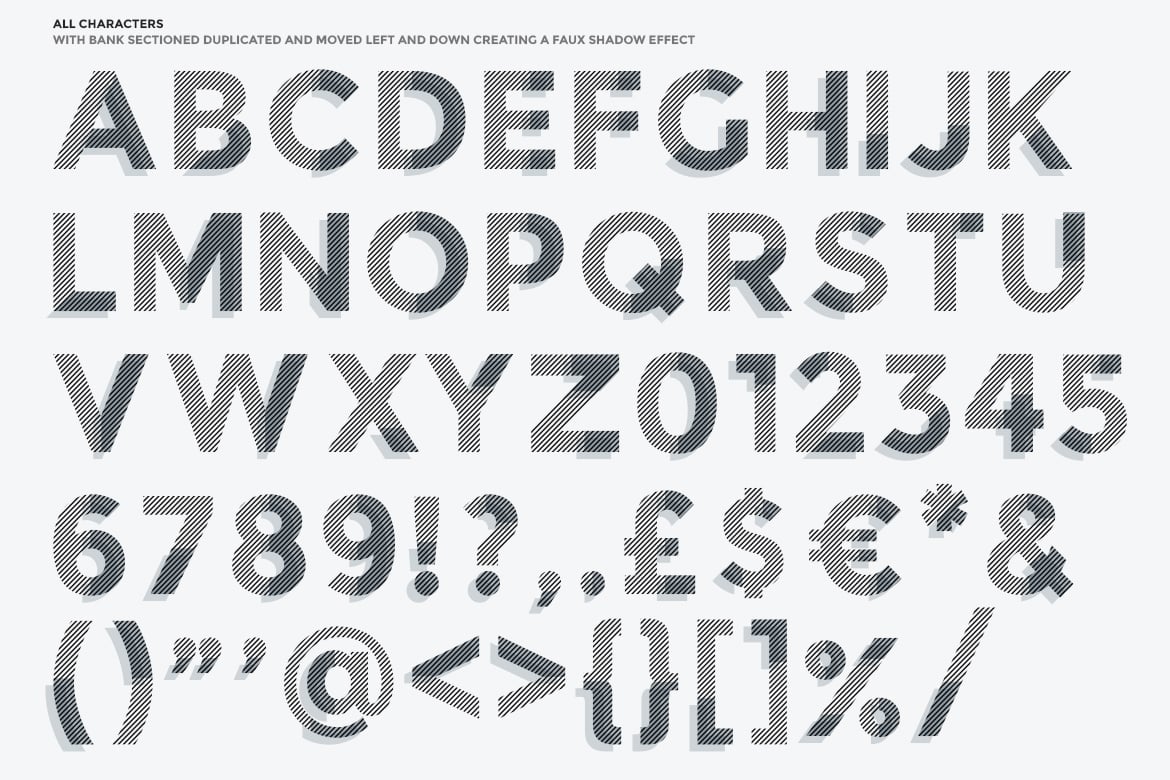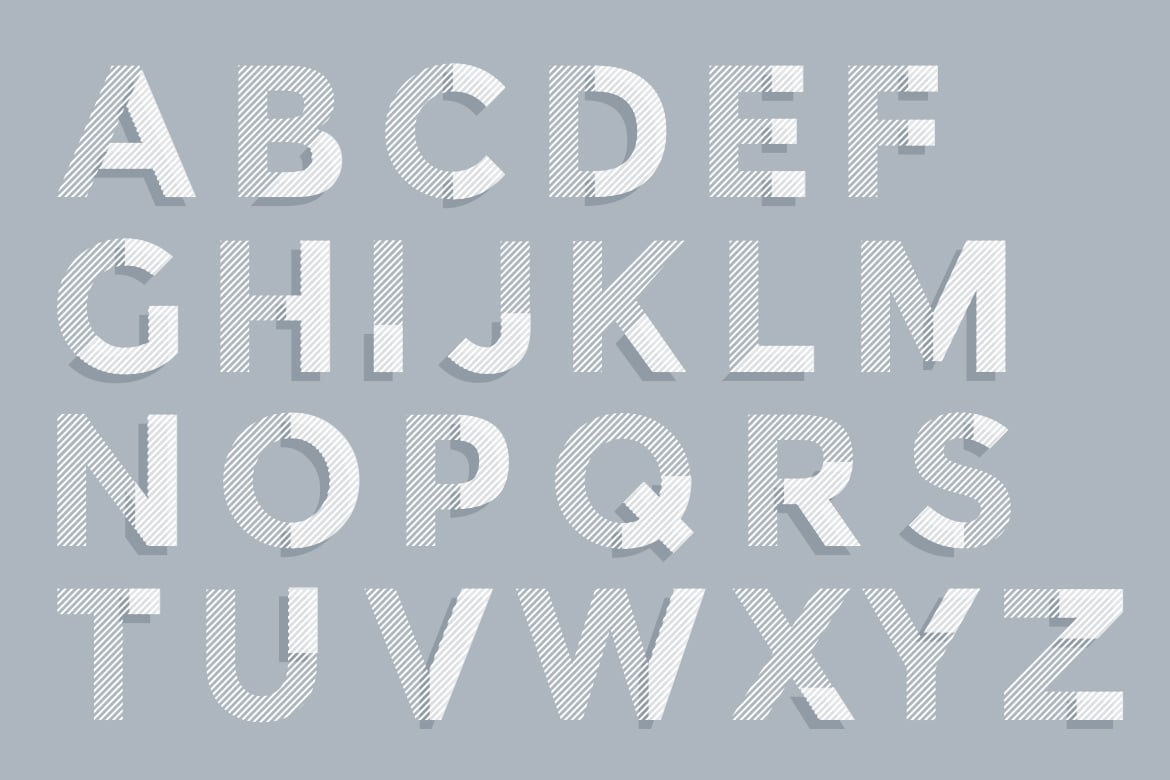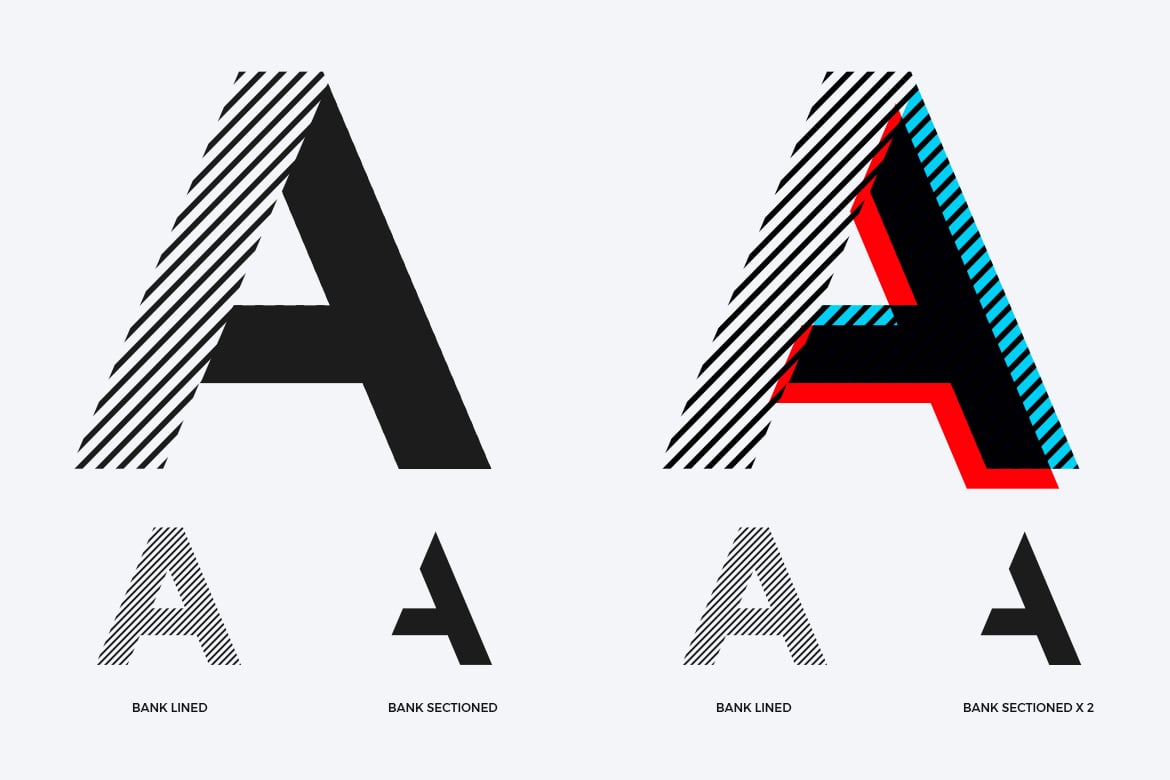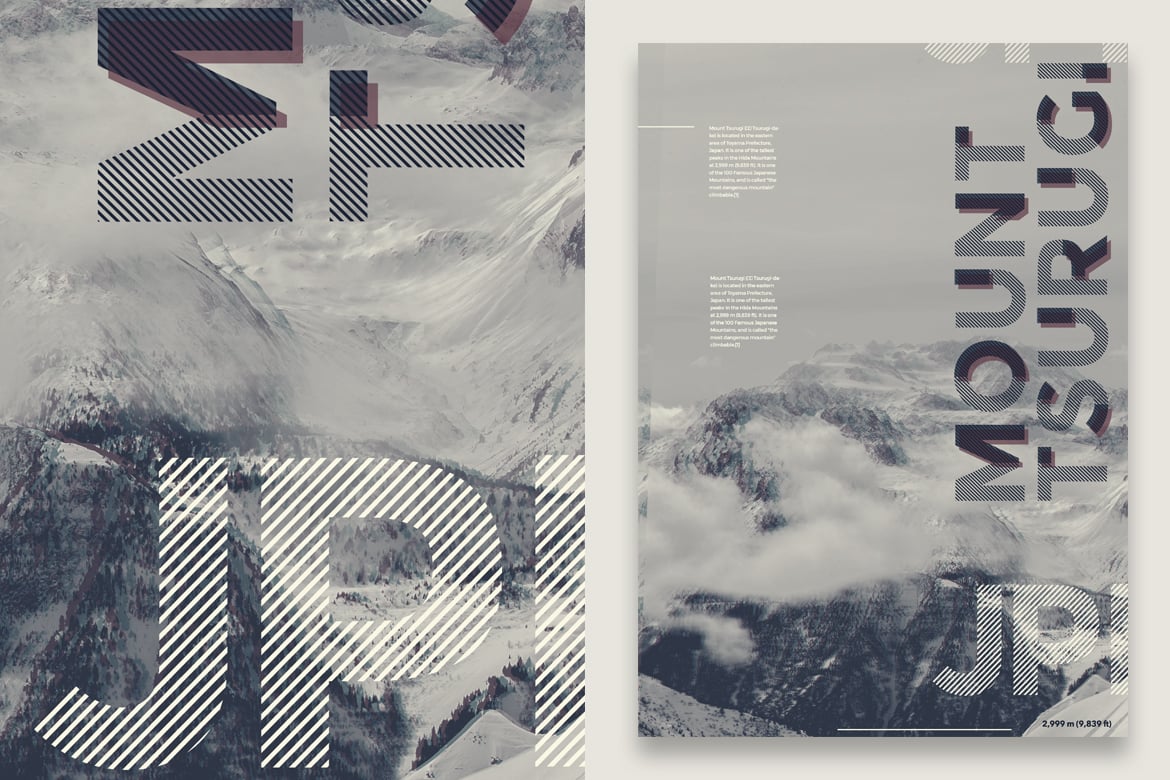
Bank Nue Display Font
Bank Nue comes in two weights (styles); Lined and Sectioned. These have been meticulously designed to be combined and layered, creating a dynamic and striking appearance. By using different color options there is virtually an unlimited range of outcomes you can achieve.
As a display font, Bank Nue works best at larger sizes, ideal for poster, logo design, banners, branding, or any other project where you need to make a statement.